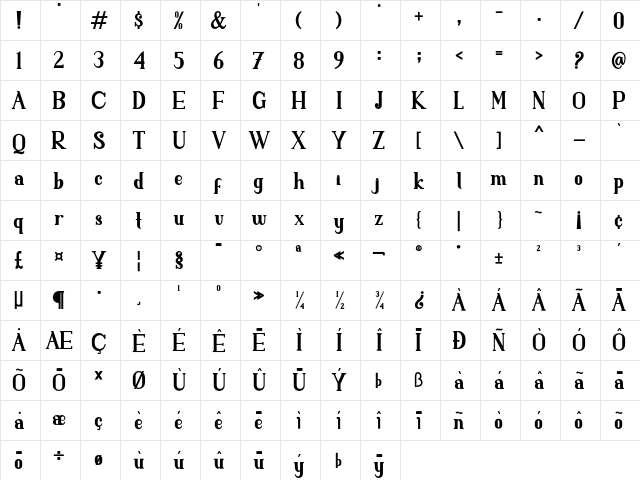
SINGGEL PARENT BOLD Regular
Regular · AFREDO.FK ZULFIKAR ALI ·
Foundry AFREDO.FK
FoundryAFREDO.FK
DesignerZULFIKAR ALI
Design Context for SINGGEL PARENT BOLD Typeface
SINGGEL PARENT BOLD is a composed and adaptable typeface that performs quietly and consistently across a wide range of design contexts. The heavy weight commands attention and anchors typographic hierarchies.